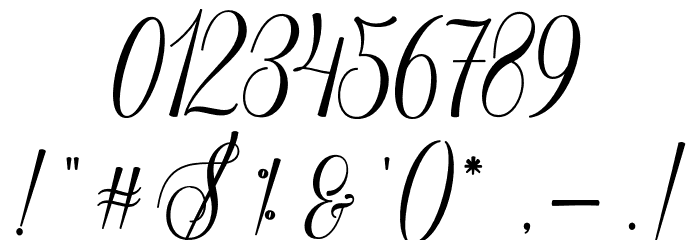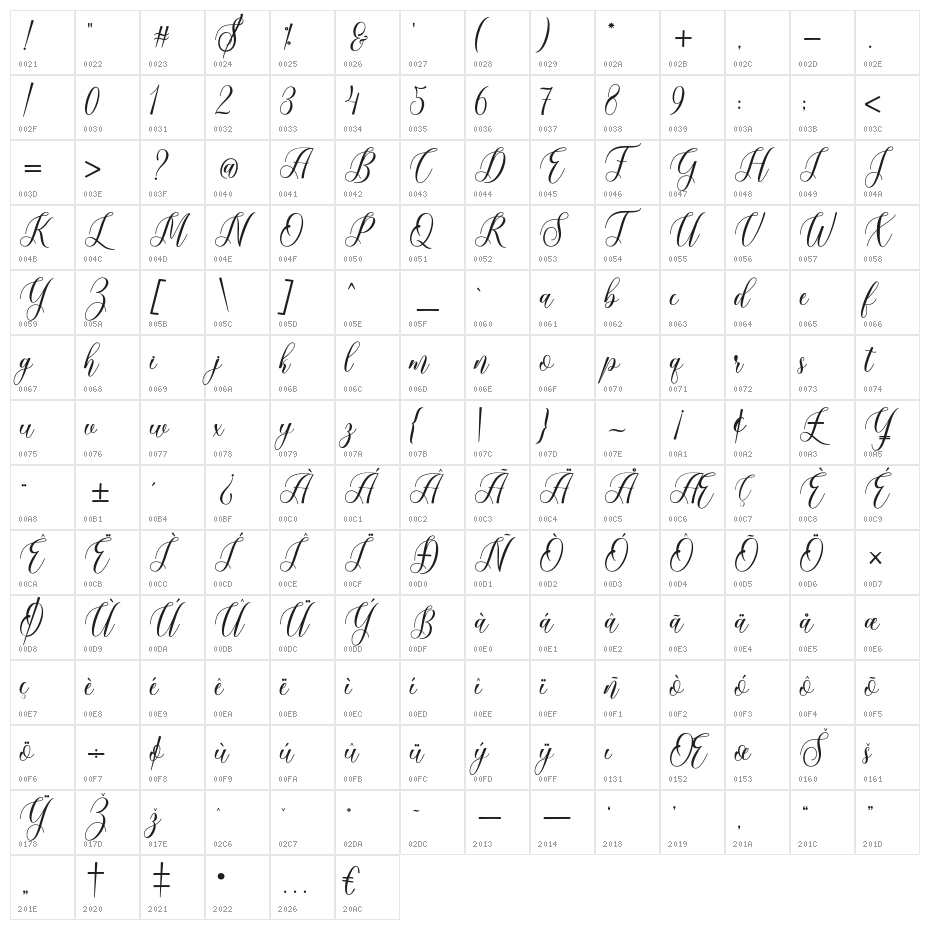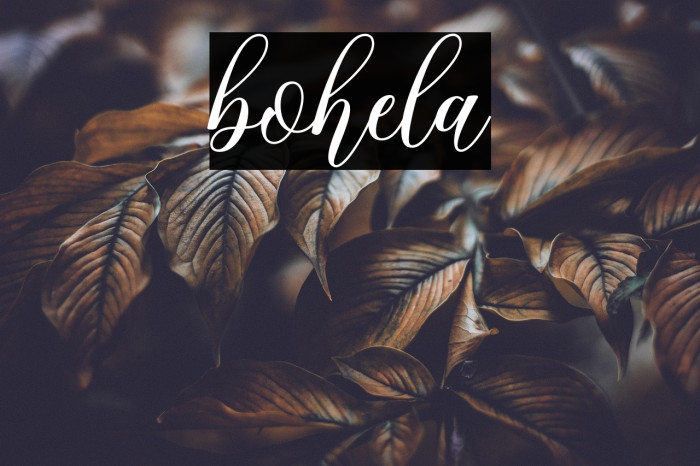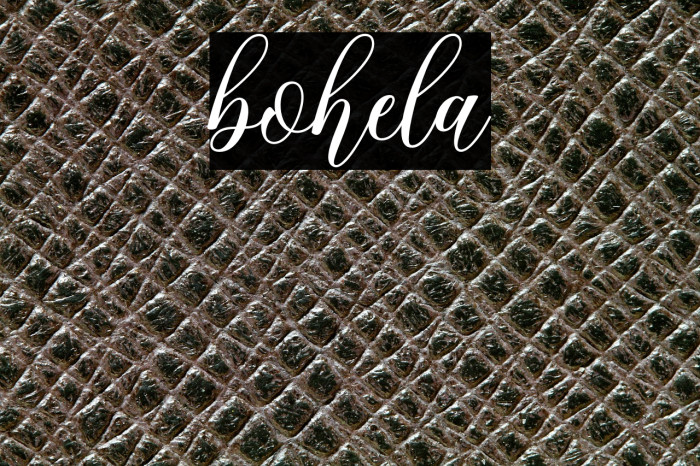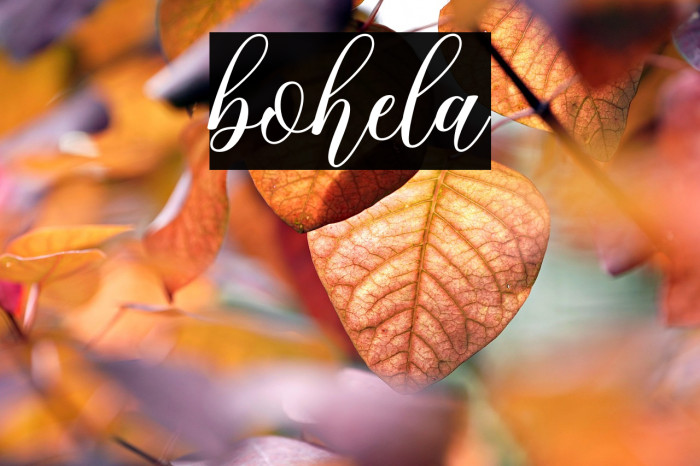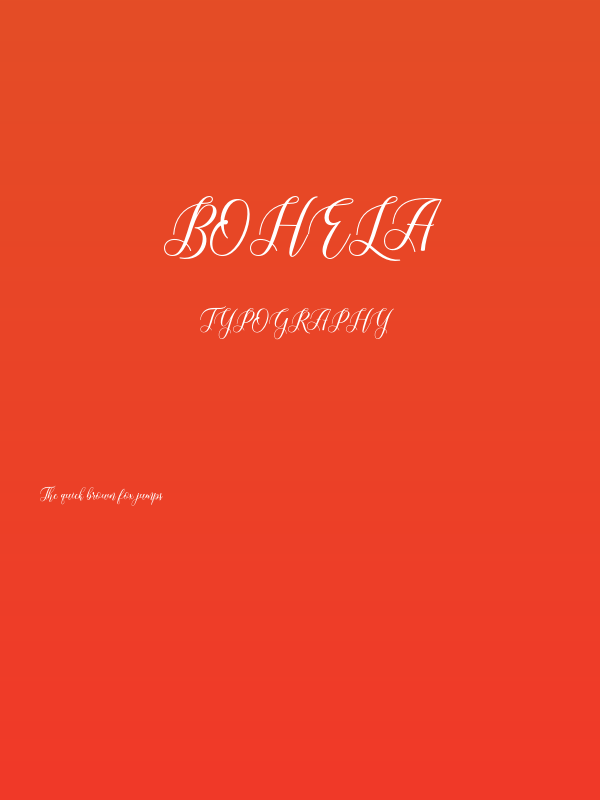
bohela Font
bohela Description
This elegant script font features flowing, interconnected letters with a classic and sophisticated appearance. The uppercase letters are gracefully elongated, with sweeping curves and delicate flourishes that add a touch of refinement. The lowercase letters maintain a consistent style, with smooth transitions and a slight slant that enhances the font's fluidity. Numbers and special characters are designed to complement the overall aesthetic, maintaining the same elegant and decorative style. This font exudes a sense of luxury and timelessness, making it ideal for projects that require a touch of class and sophistication.
Overall StyleClassic
Use CaseHeadlines, Invitations, Branding
Proposed ProjectsIdeal for wedding invitations, luxury branding, elegant stationery, and high-end product packaging.